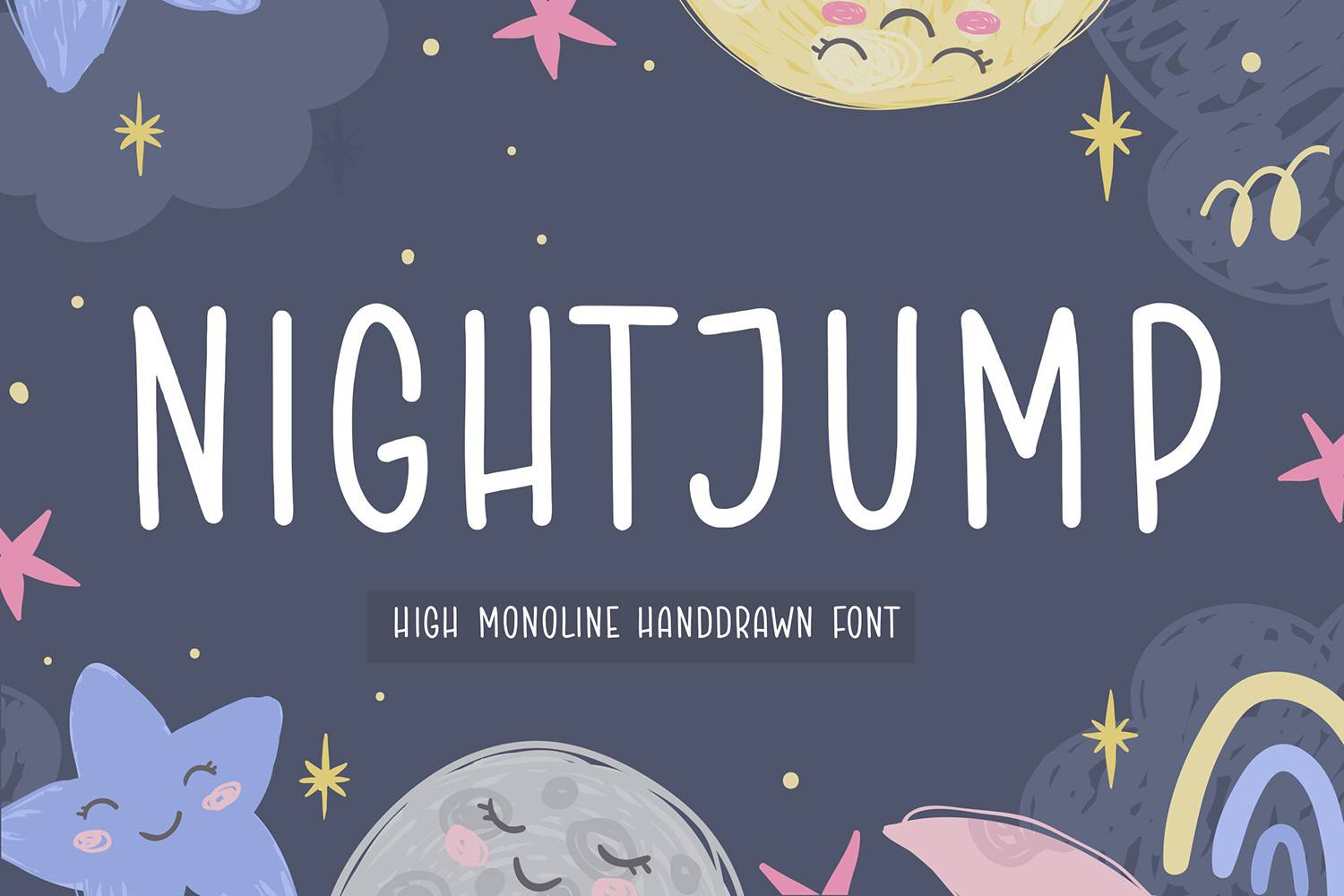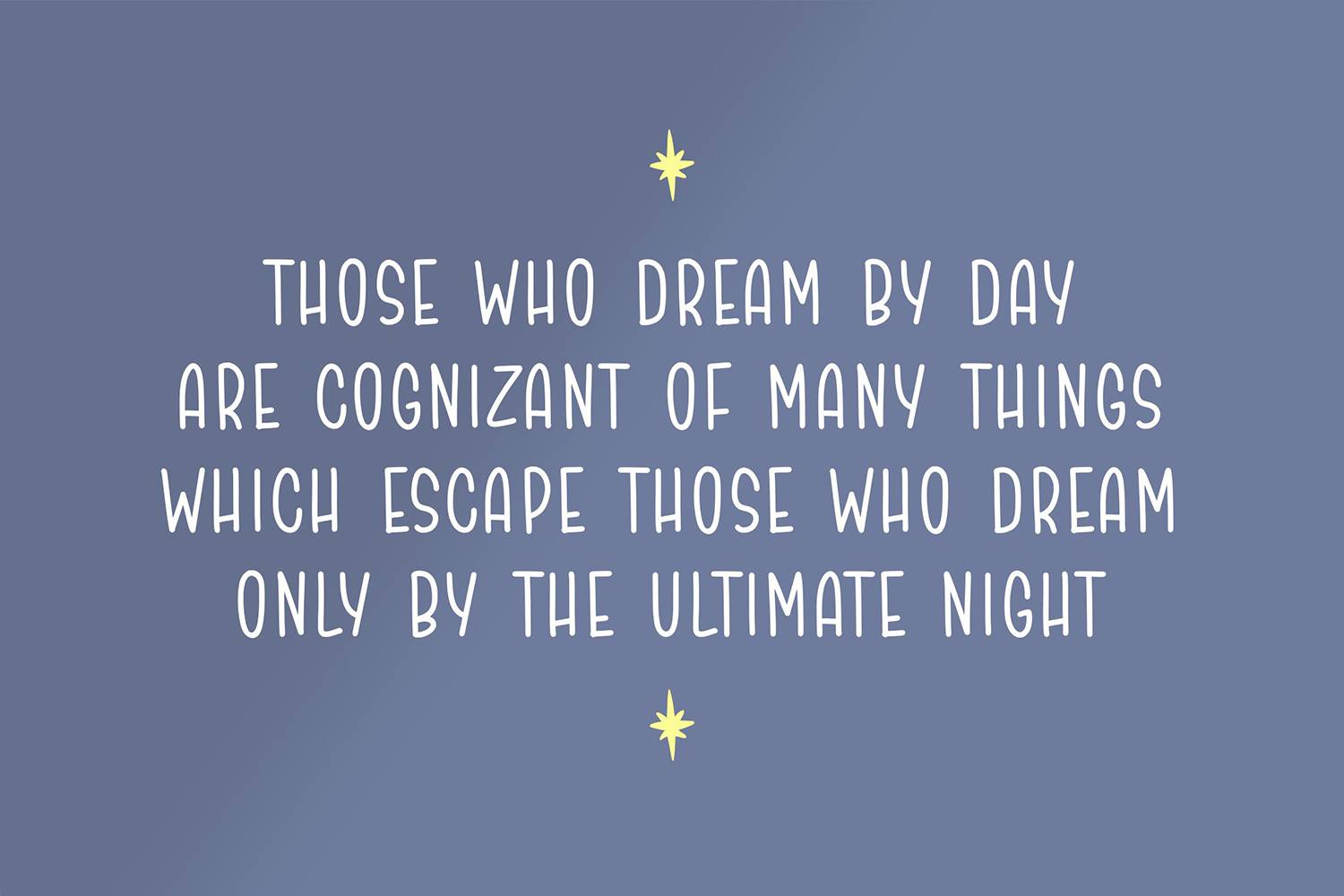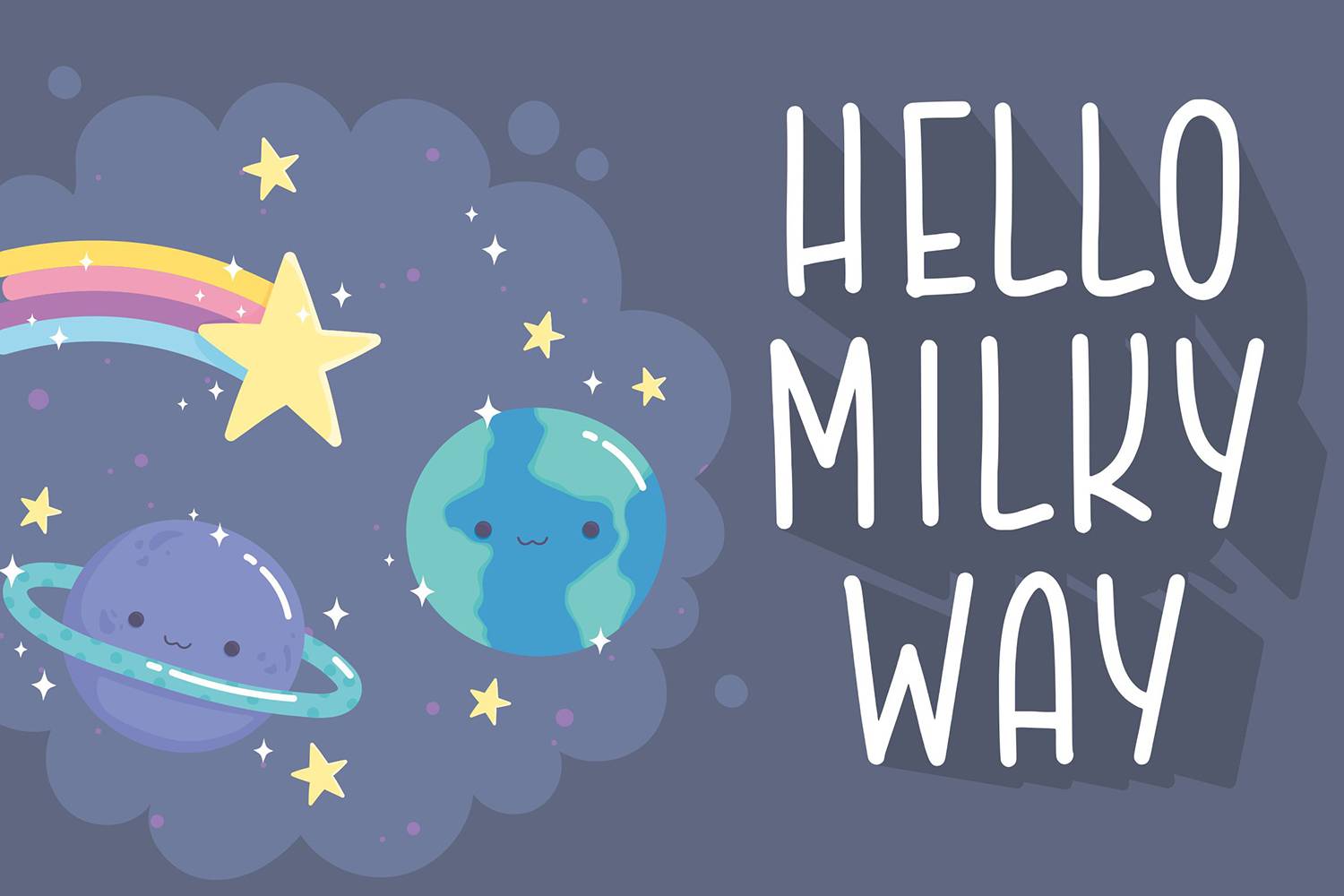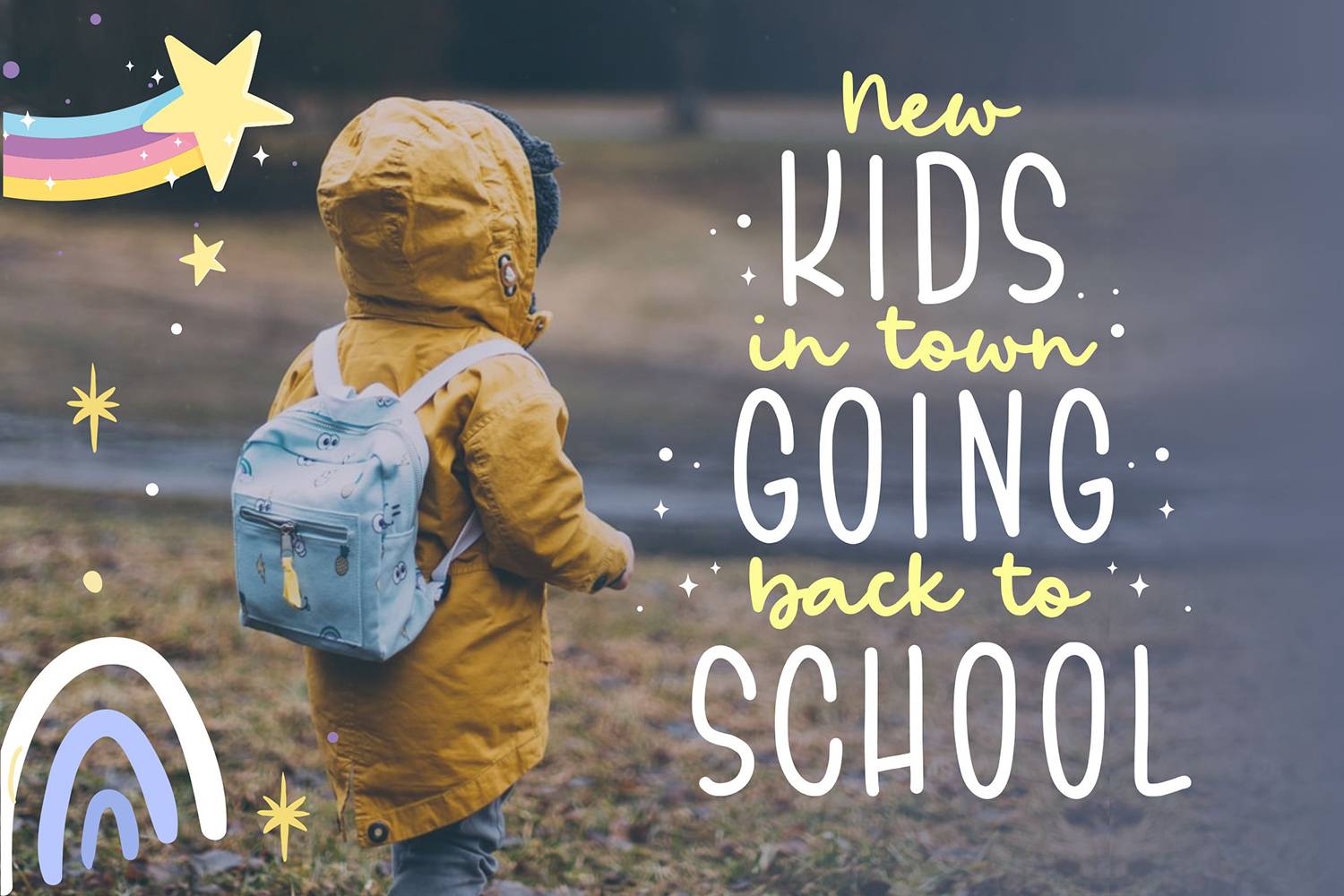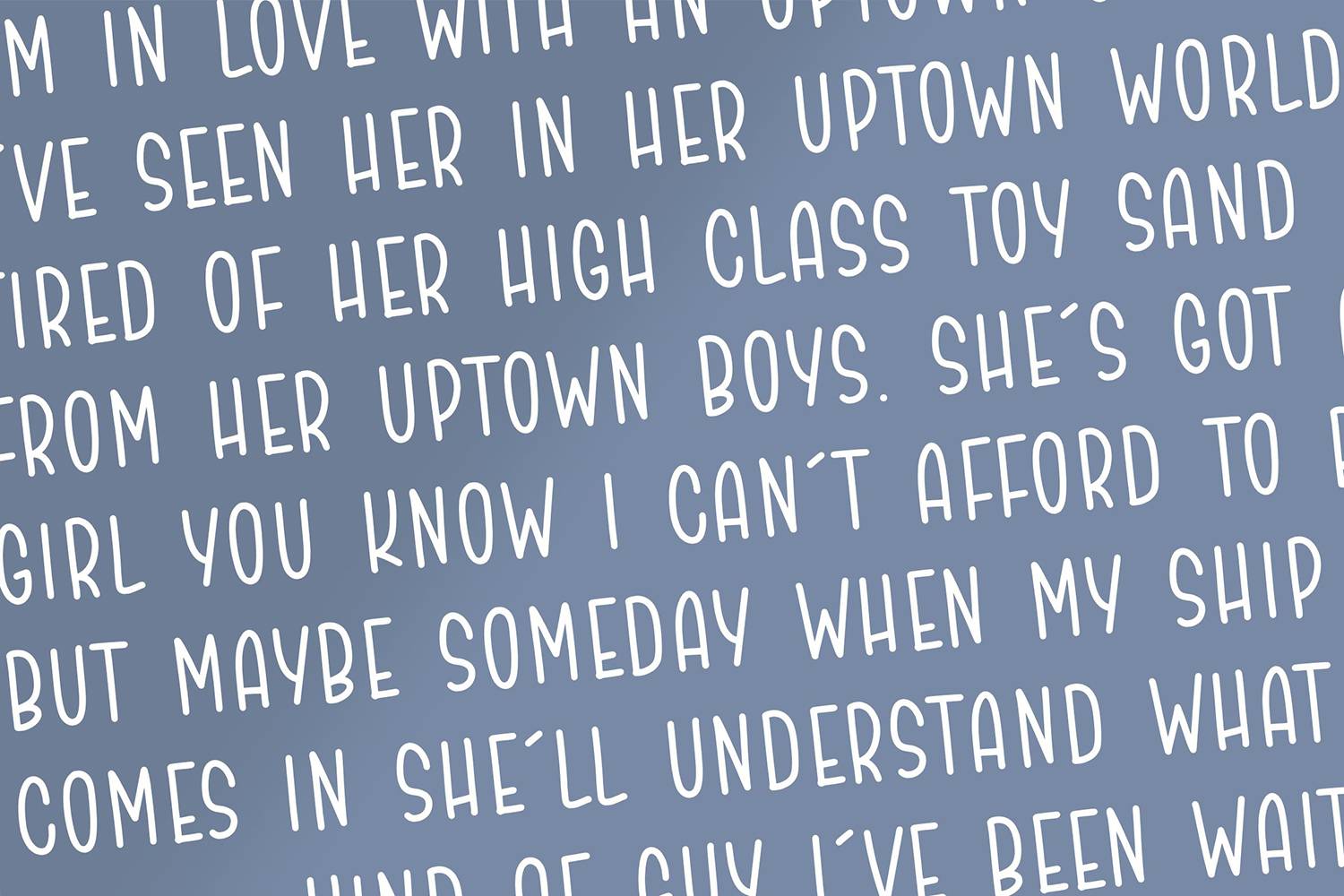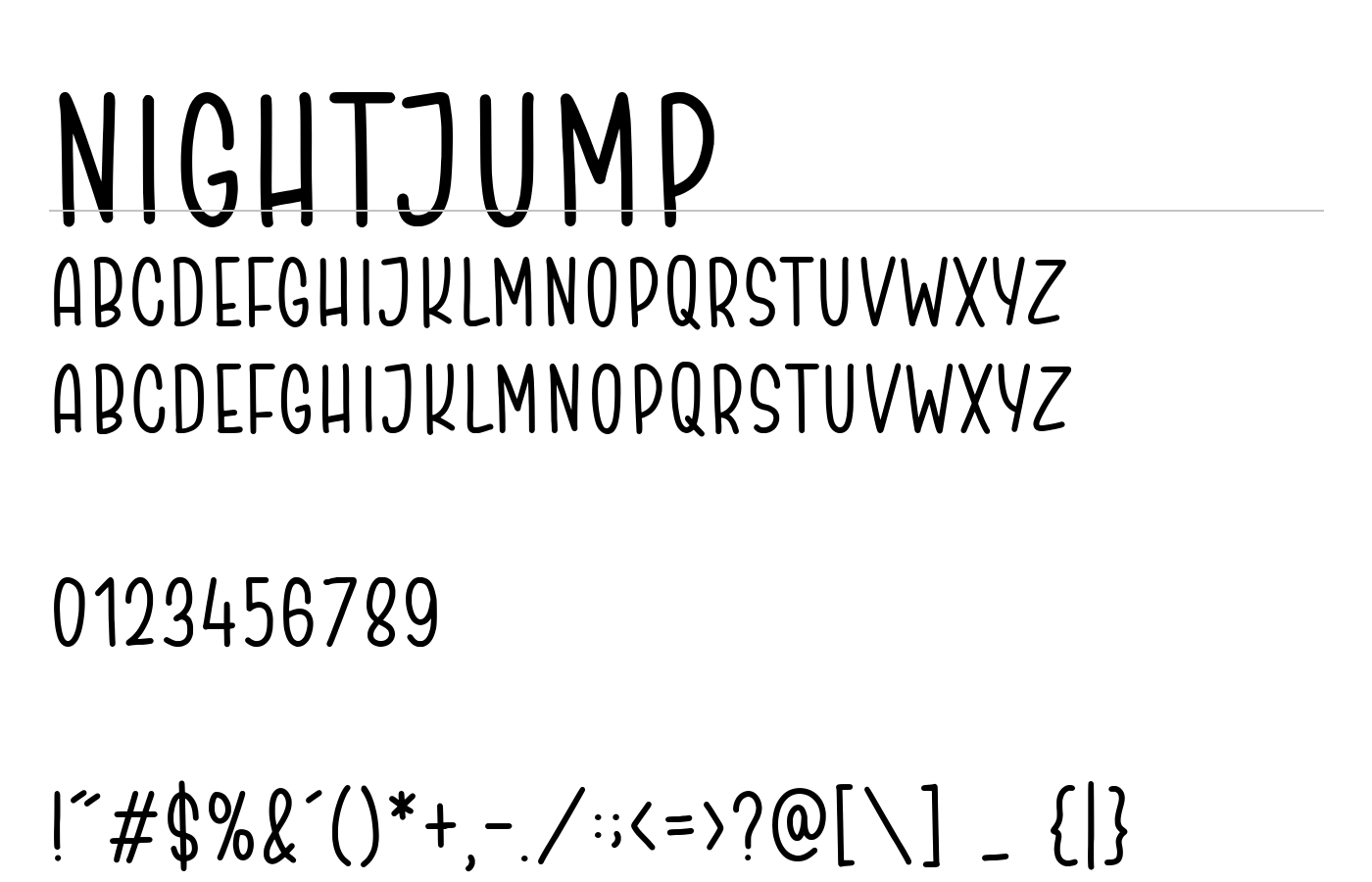
Night Jump is a playful and casual sans serif font with tall, narrow letterforms and a hand-drawn feel that adds personality and charm. Its light weight and slightly uneven strokes give it an inviting, friendly vibe, making it perfect for informal branding, creative projects, and headlines that want to stand out with a unique, approachable style. This font works well for children’s content, posters, and any design seeking a whimsical, handmade look without sacrificing readability.
Night Jump Font
About Night Jump Font